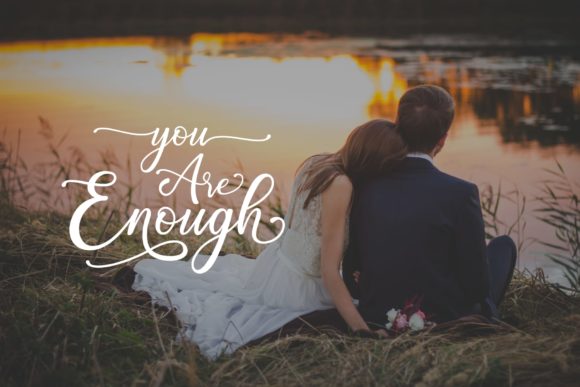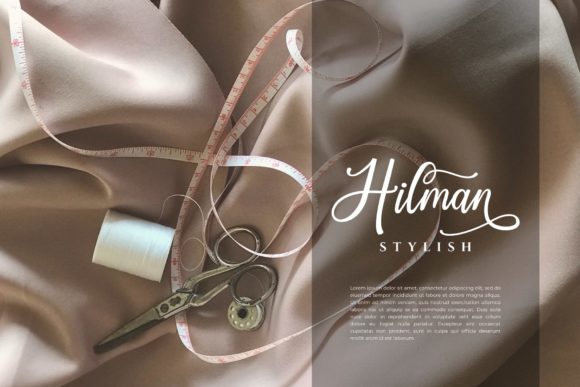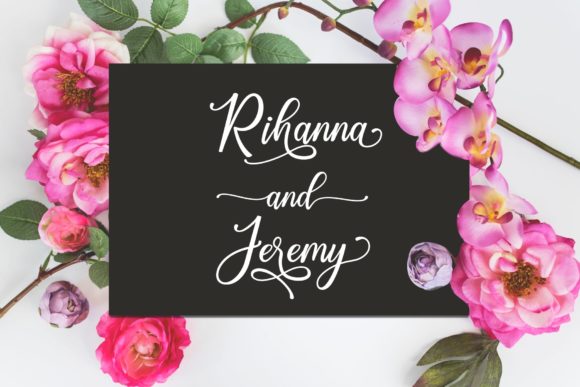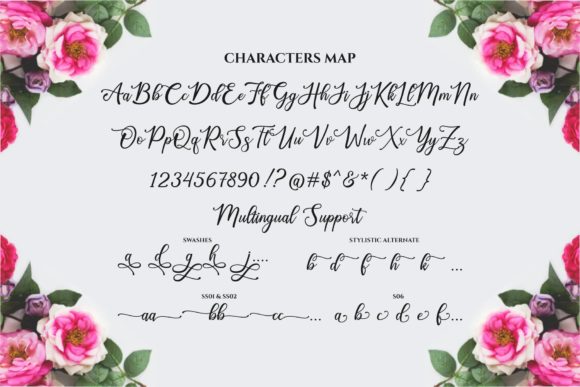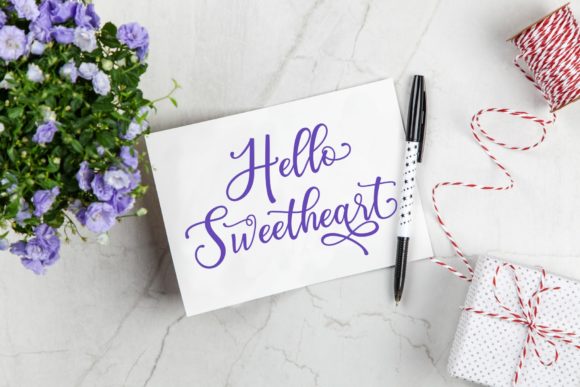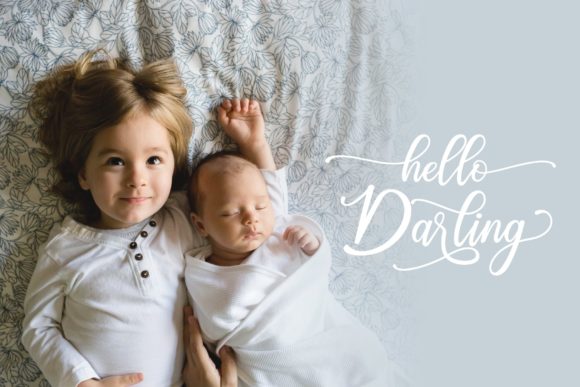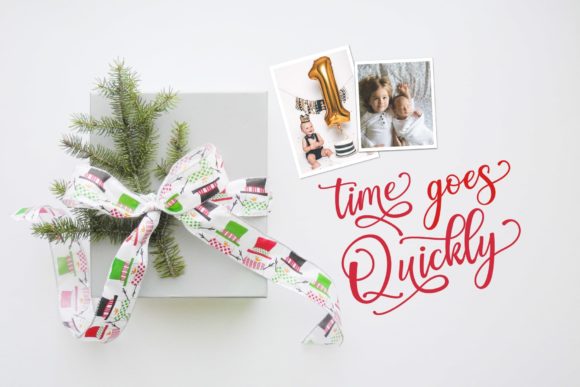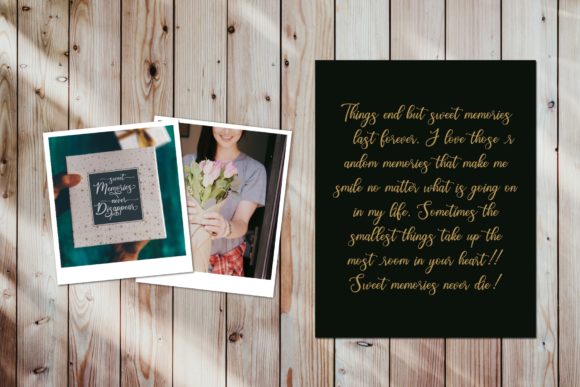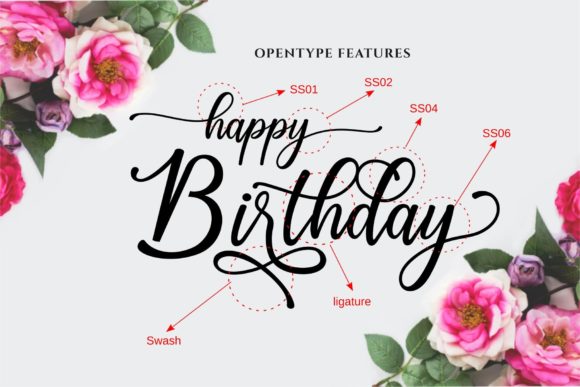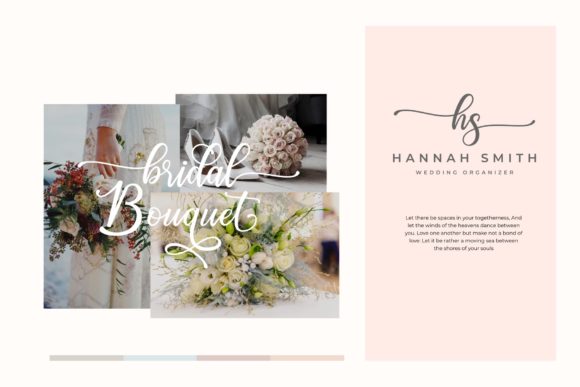
Happy Birthday Font
About Happy Birthday Font
Happy Birthday is a pretty amazing script font that will add a bold feel to your next design project. Get inspired by its unique style!